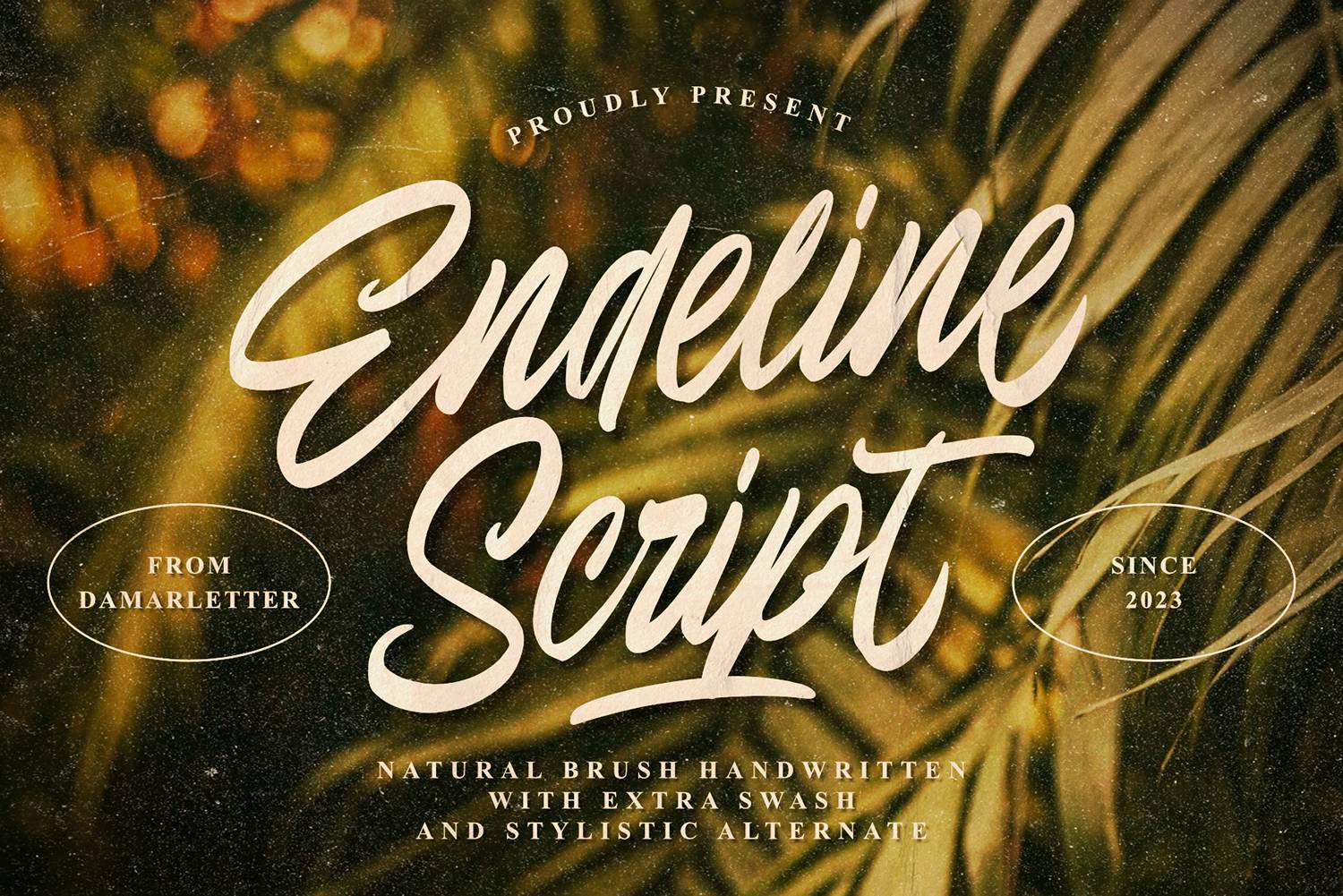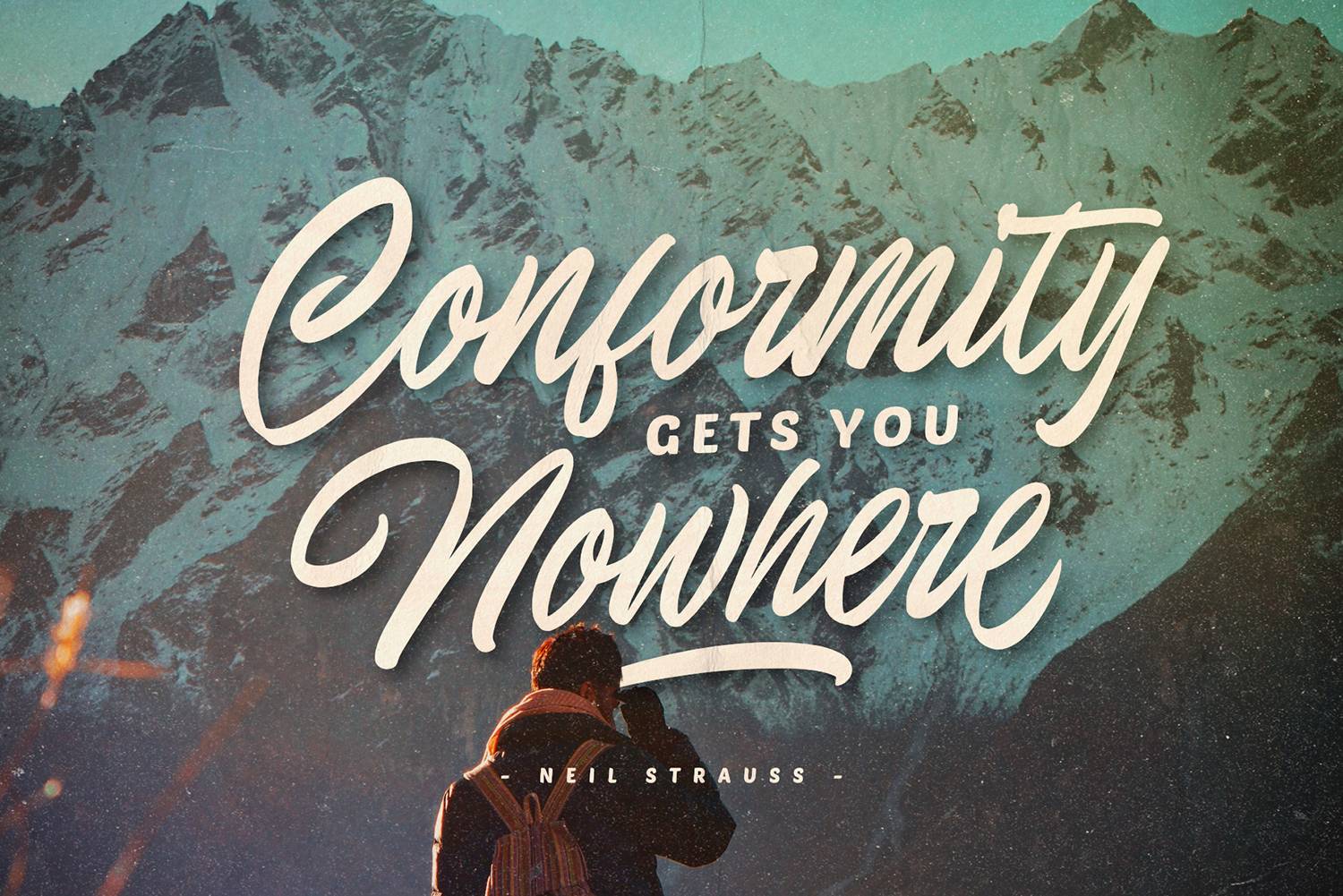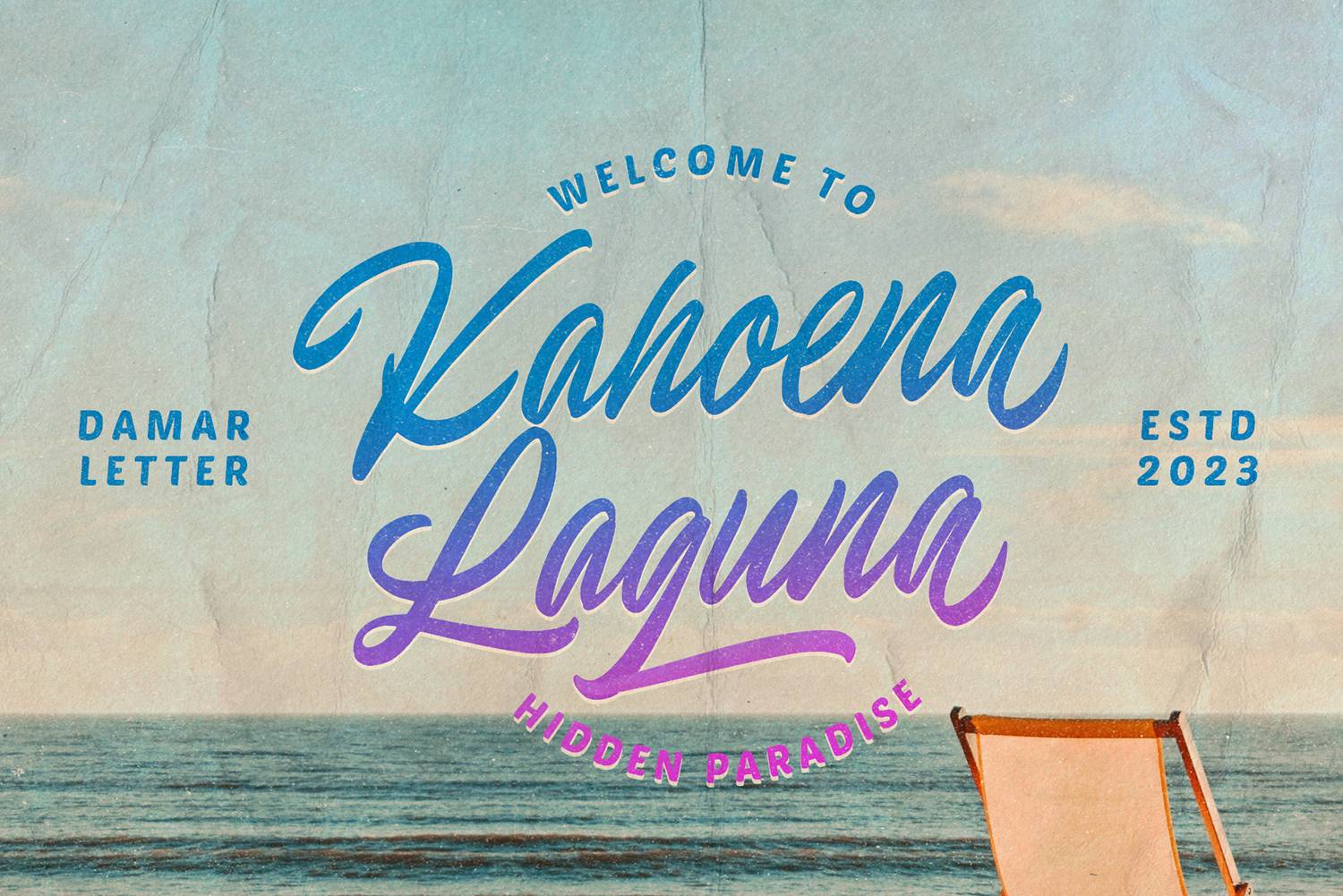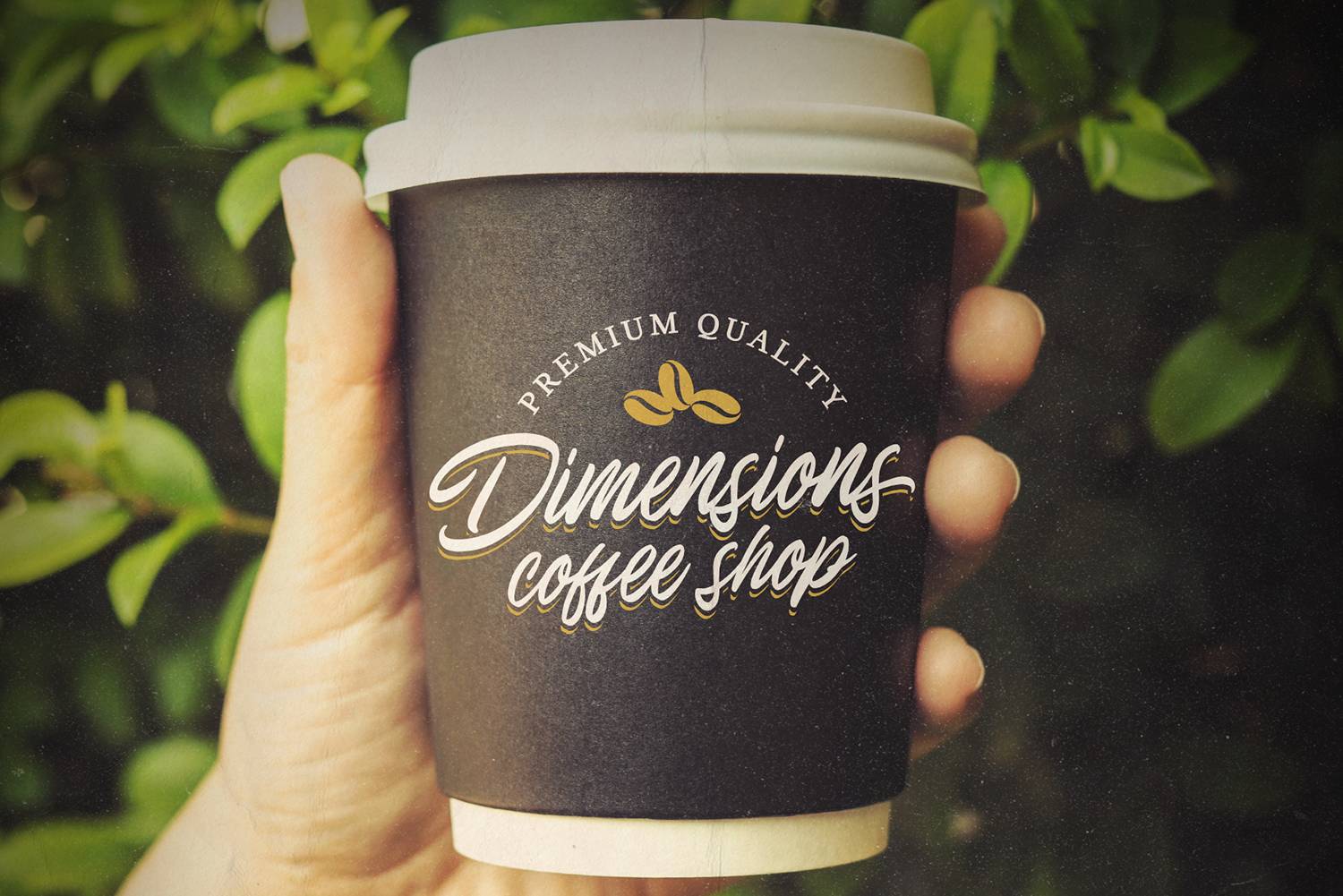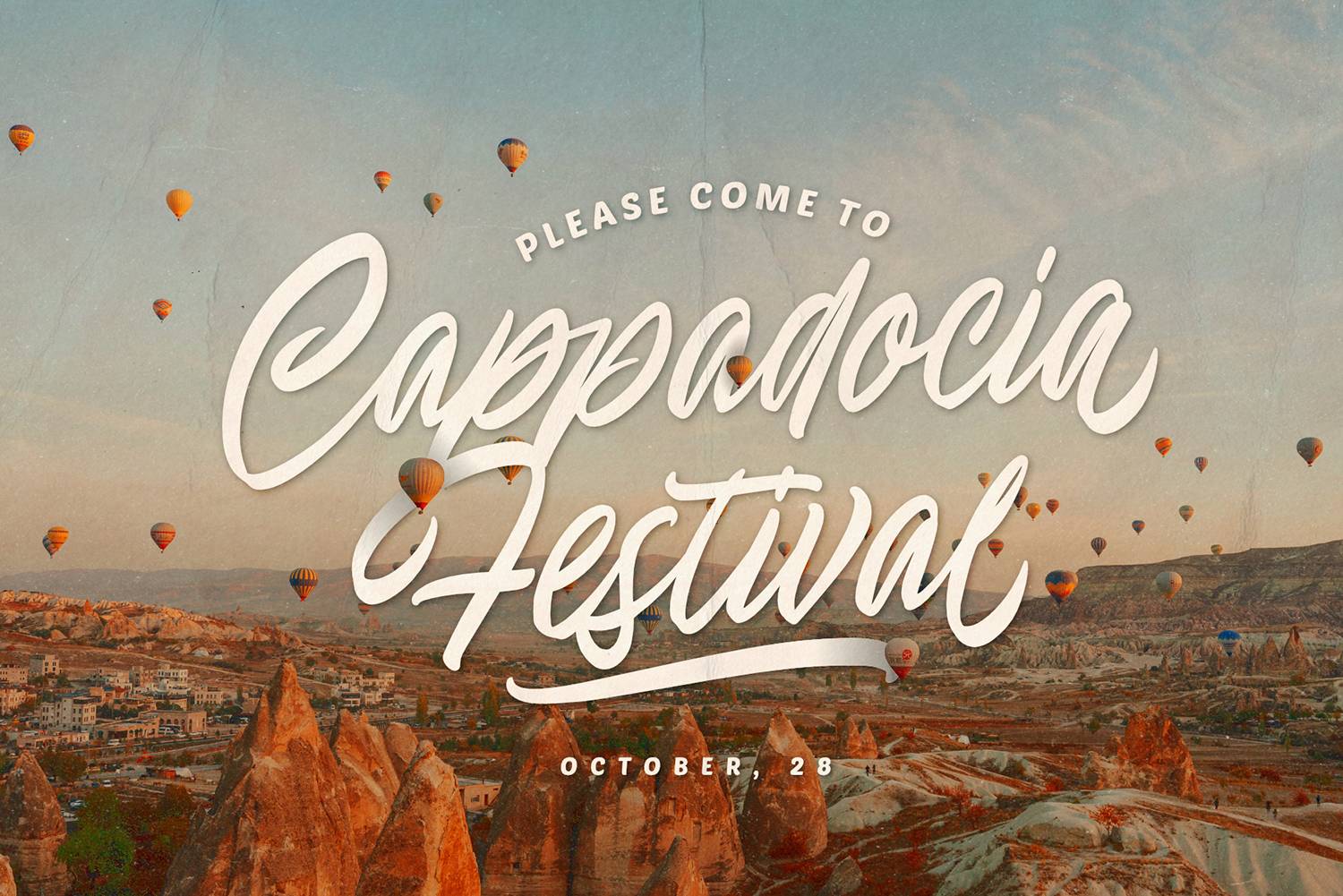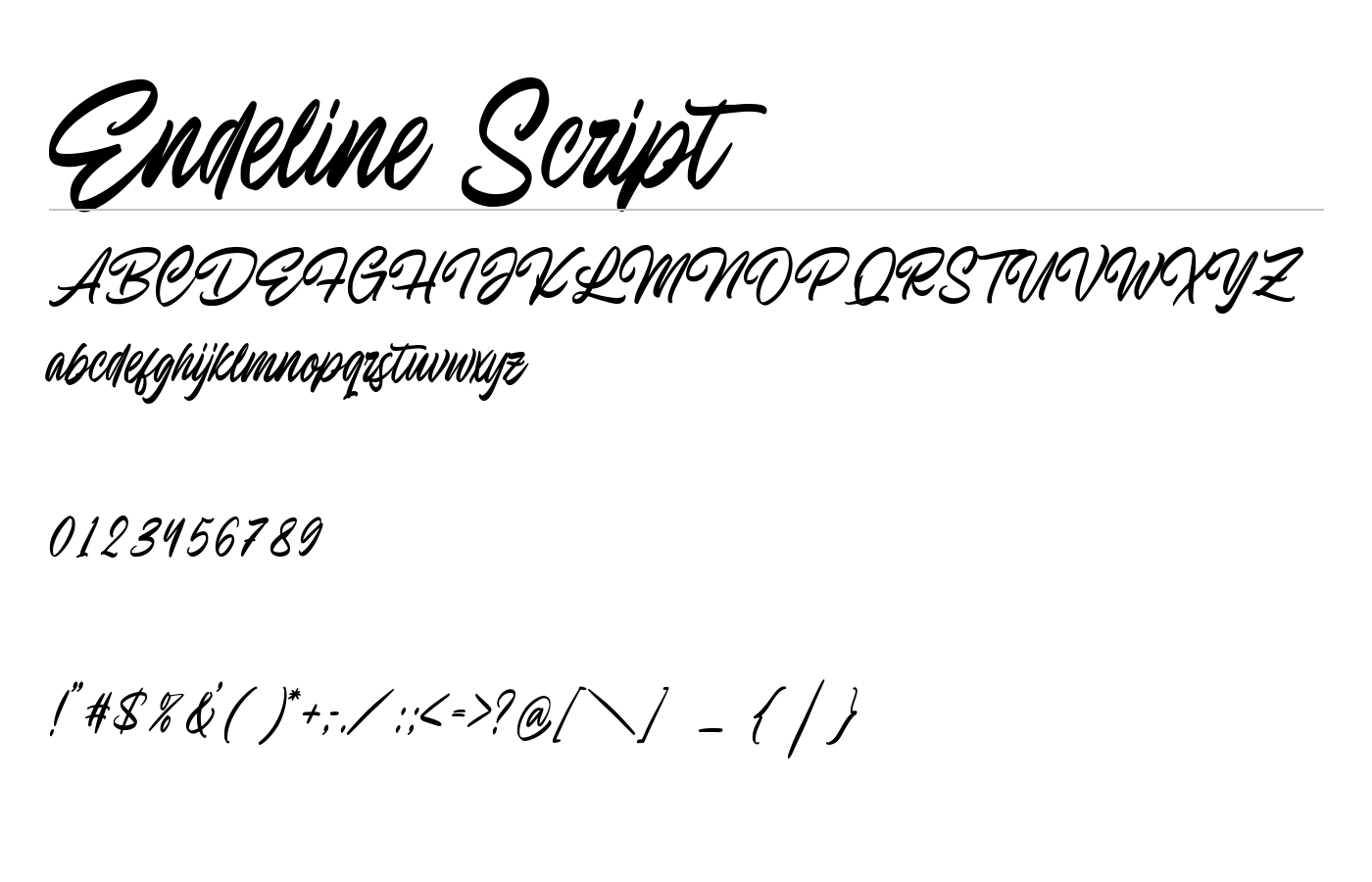
Endeline Script is a lively and elegant script font with a smooth, flowing style that mimics natural handwriting. It features a medium weight with slightly varied stroke thickness and a distinct, casual charm that makes it perfect for creative branding, invitations, and stylish headlines. This font works well where a personal, artistic, and approachable feel is desired, adding a touch of sophistication without being overly formal.
Endeline Script Font
About Endeline Script Font
| Font family | Endeline Script Font |
| Designer | Ardian Nuvianto |